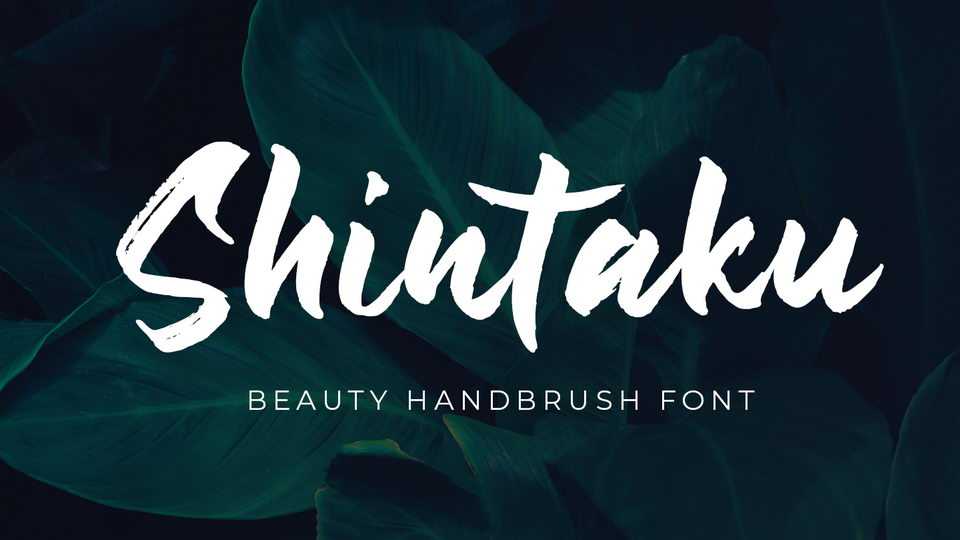
Download Shintaku font, a bold handbrush typeface made with a real brush pen to keep the natural taste. Shintaku is great for branding, packaging, logo, quote, and more.
Designer: Abo Daniel